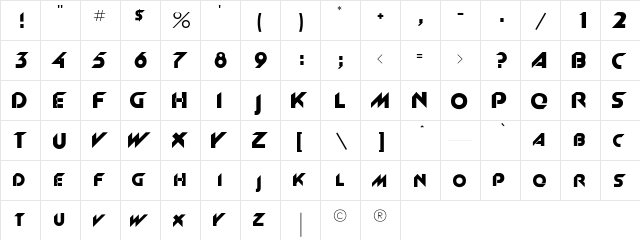
PCAndilarett Regular
Design Context for PCAndilarett Typeface
PCAndilarett is a composed and adaptable typeface that performs quietly and consistently across a wide range of design contexts.